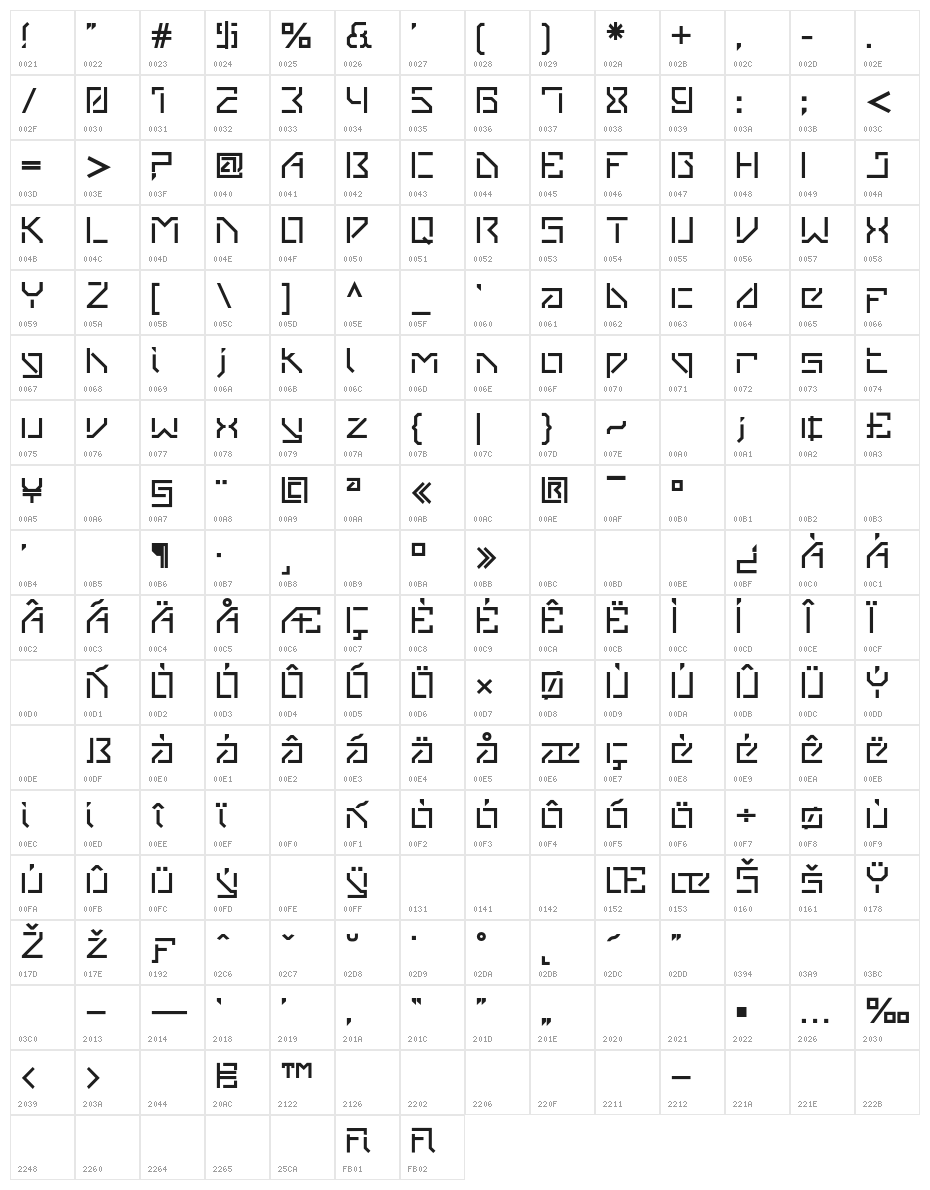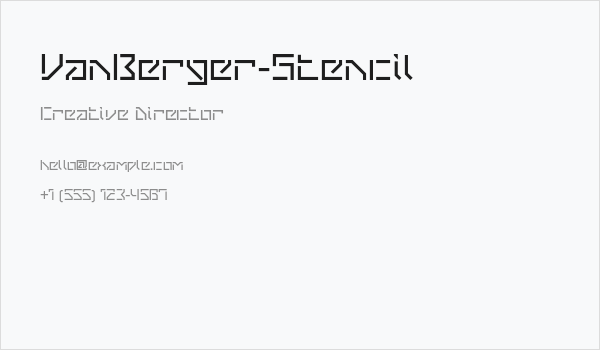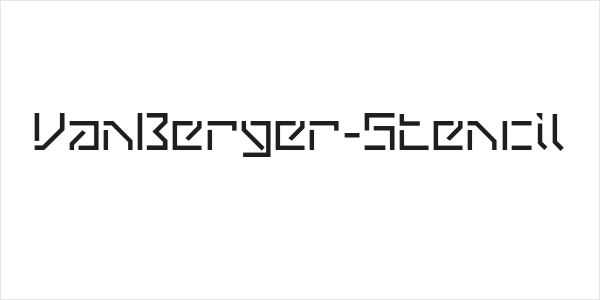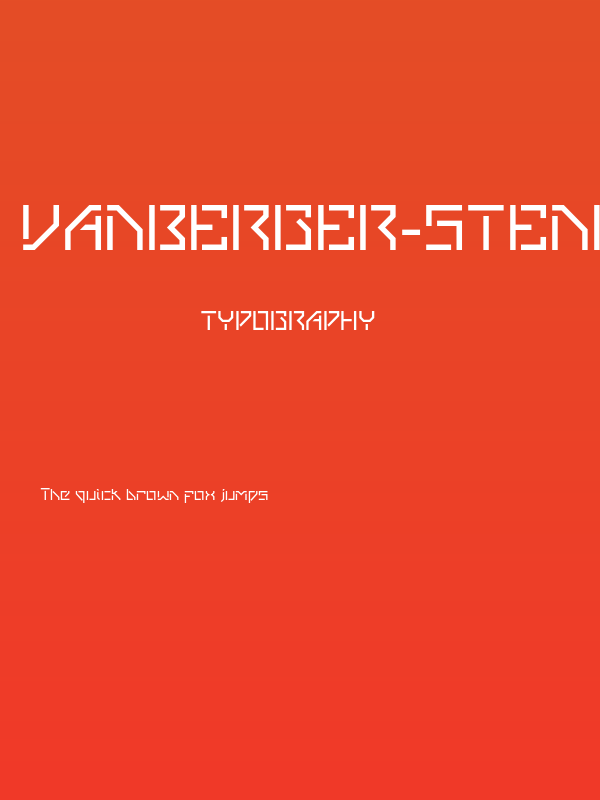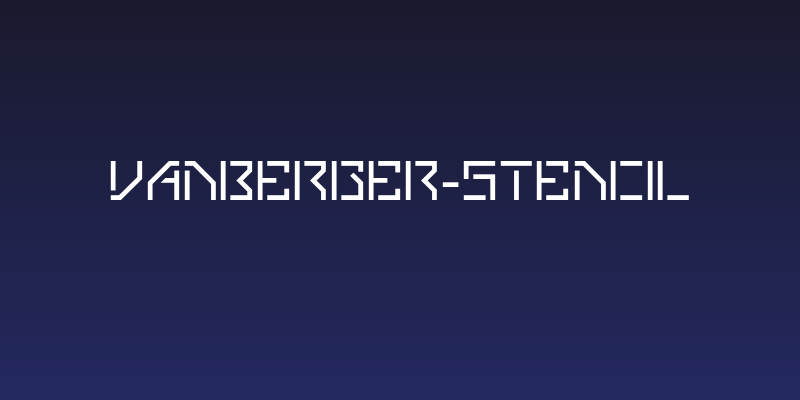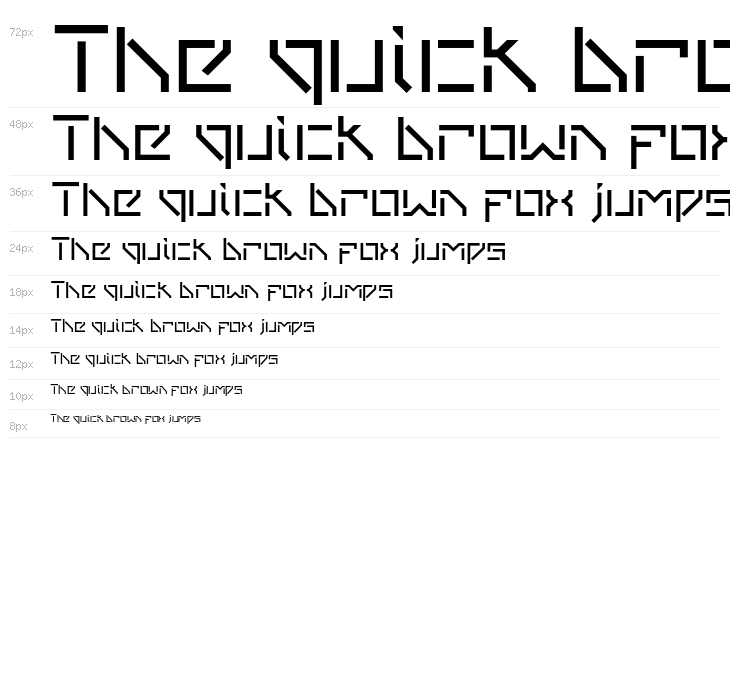
VanBerger-Stencil Font
VanBerger-Stencil Description
This font features a bold, geometric stencil design with sharp angles and clean lines. Each character is constructed with a series of straight, thick strokes, creating a modern and industrial aesthetic. The stencil gaps are strategically placed, adding a unique and functional aspect to the design while maintaining legibility. The uppercase and lowercase letters share a consistent style, with numerals and special characters following the same geometric pattern. This font is ideal for projects that require a strong, impactful visual presence.
| Proposed Projects | Ideal for branding, signage, posters, and any project needing a modern, industrial look. |